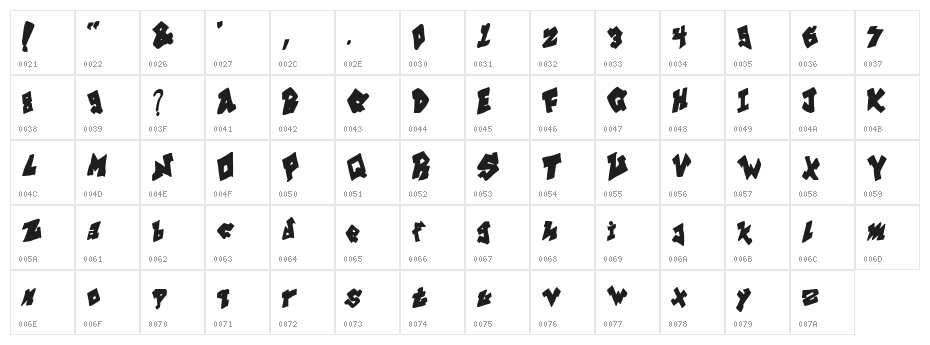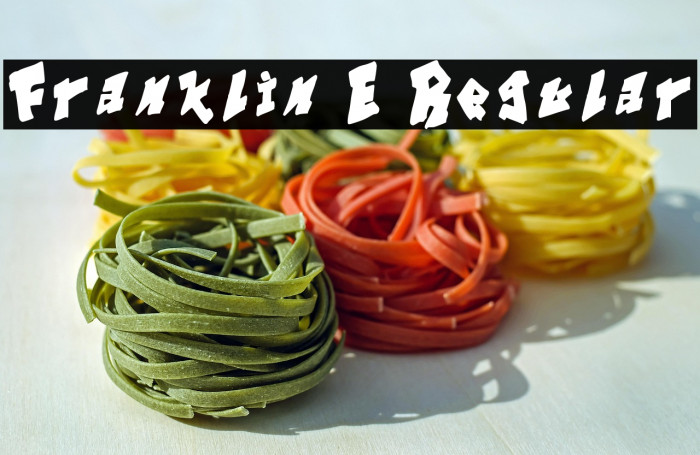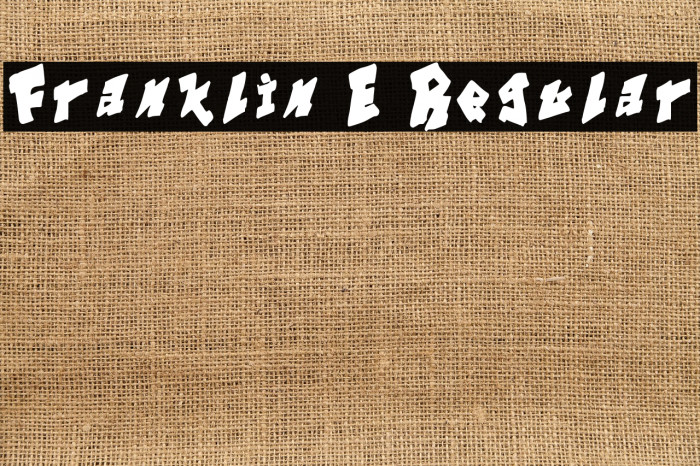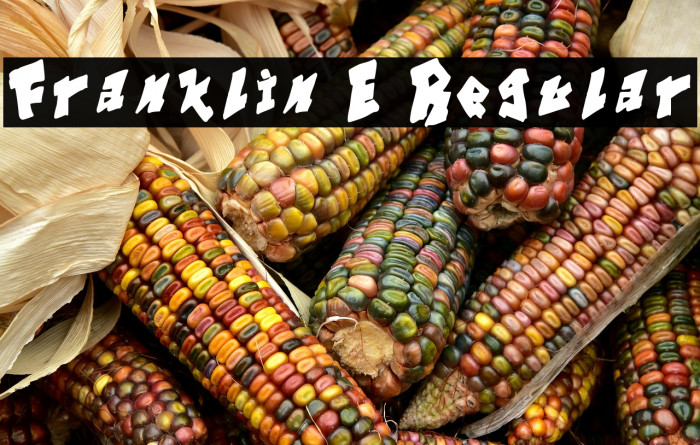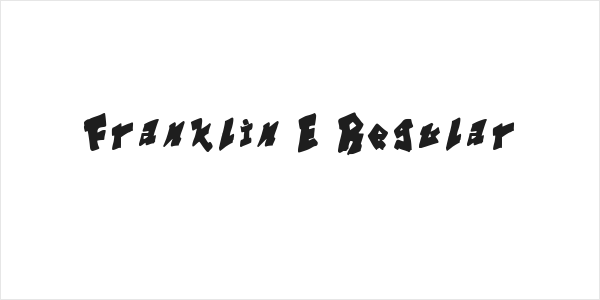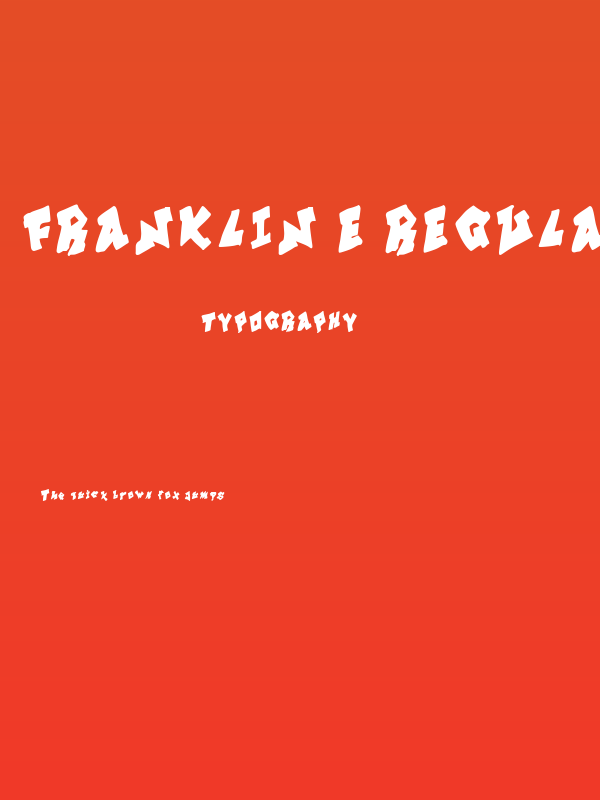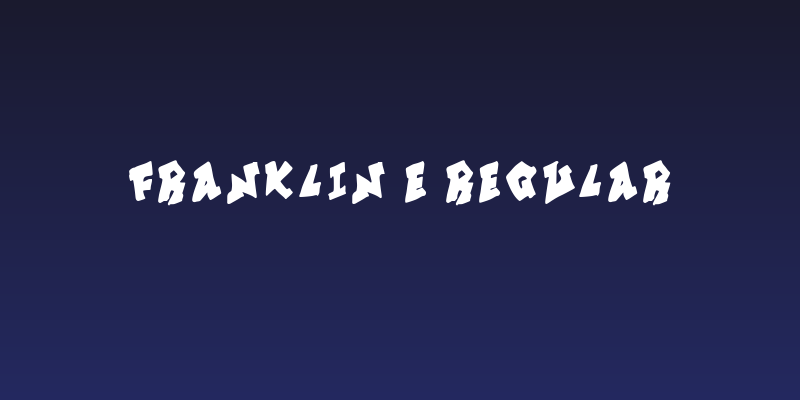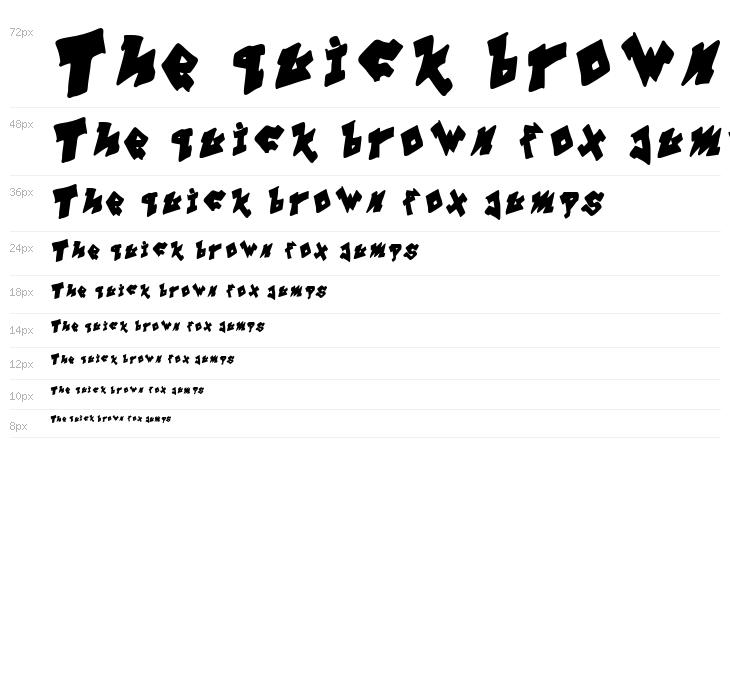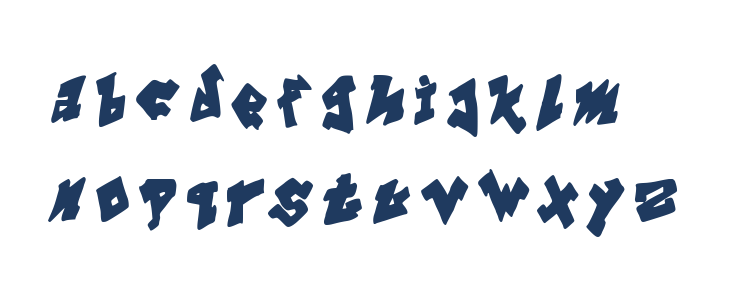
Franklin E Regular Font
Franklin E Regular Description
This font features a bold and dynamic style with irregular, jagged edges that create a sense of movement and energy. The characters are heavily stylized, with a rough, hand-drawn appearance that gives them a unique and edgy look. The uppercase and lowercase letters maintain a consistent design, with sharp angles and varying stroke widths that add to the font's boldness. The numbers and special characters follow the same aesthetic, ensuring a cohesive appearance across all glyphs. This font's distinctive style makes it stand out, making it suitable for projects that require a strong visual impact.
| Overall Style | Modern, Edgy |
| Proposed Projects | Ideal for posters, album covers, graffiti art, and branding that requires a bold statement. |